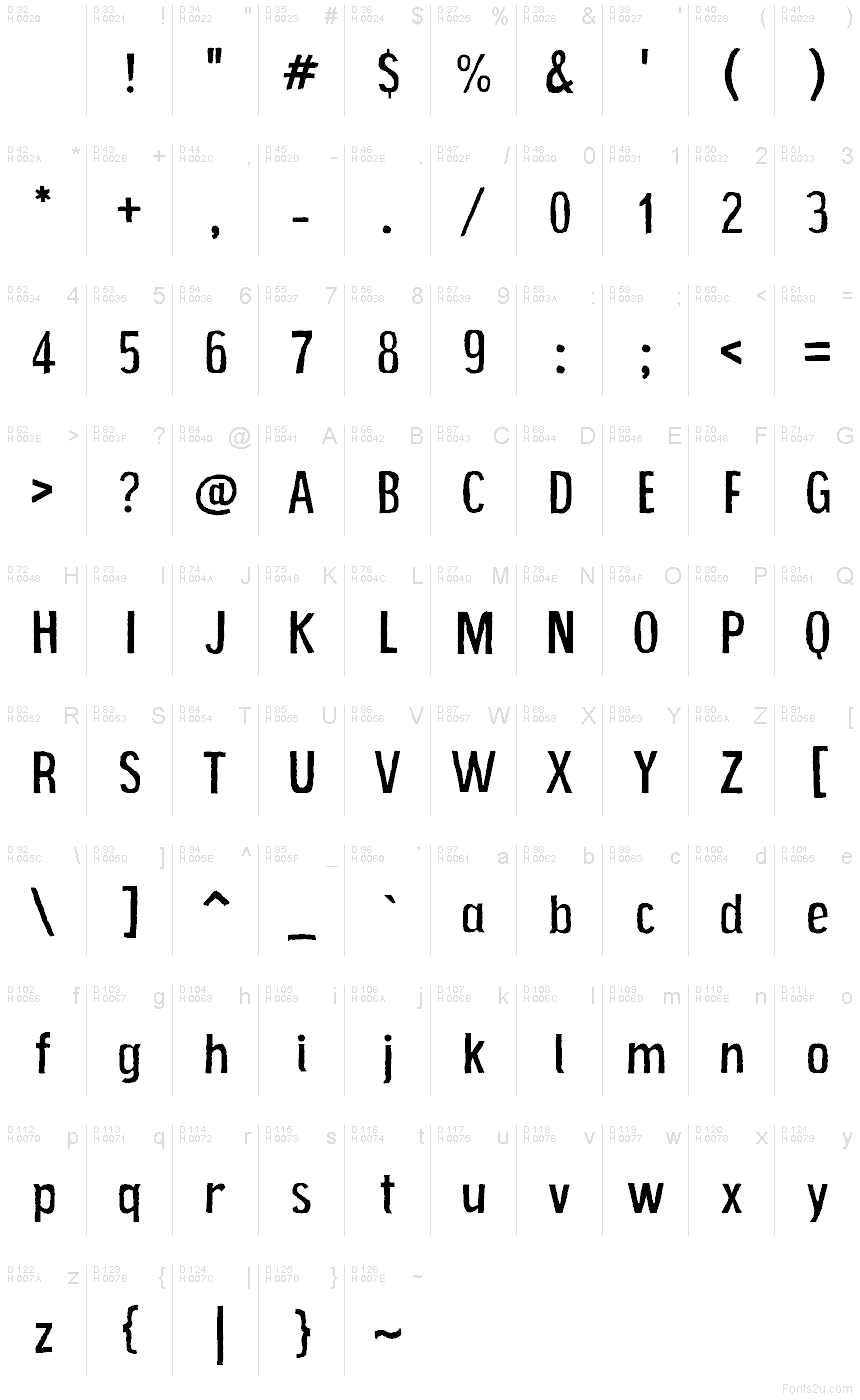
Grunge Poster Regular
Grunge Poster font by Galdino Otten Fonts captures an eroded and distressed look ideal for grunge-inspired design. This free display font has a rugged aesthetic and is known for its condensed width and bold characters that appear to have been brushed. It is without a doubt the perfect choice for representing edgy vibes through modern digital or printed displays.
This typeface will bring contemporary value to alternative posters, headers, logos, visual identities, product packaging labels, typography texts on album covers, social media posts, bands campaigns’ T-shirts designs, advertisements in magazines or newspapers.
Grunge Poster